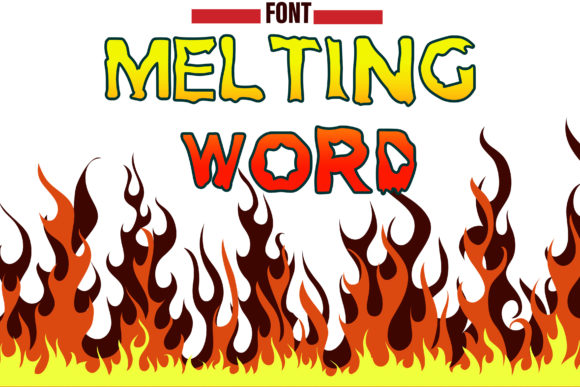
Journey into the realm of the extraordinary with Melting Word Font, a display font that drips with mystique and character. Created by the masterminds at Funnyarti, this font is a captivating dance of molten letters, twisting and turning to form a visual spectacle that commands attention.
Step into a world of boundless creativity, where Melting Word Font transforms your designs into works of art. Its unique, liquid-like appearance adds a touch of intrigue to any project, capturing the eyes and captivating the imagination. Imagine the impact on your t-shirts, sportswear, logos, advertising campaigns, and clothing line when they're adorned with the allure of Melting Word Font. Unleash your creativity and let the font's mesmerizing flow guide you to new heights of design excellence.
Immerse yourself in the versatility of Melting Word Font, a font that adapts seamlessly to a myriad of design aesthetics. Whether you seek a playful, quirky touch or an air of sophistication and elegance, this font delivers. Its ability to morph and mold to your vision makes it the perfect companion for projects that demand a unique and captivating edge.
Dare to be different, to stand out from the crowd, with Melting Word Font. Its captivating presence is guaranteed to leave a lasting impression, making your designs unforgettable. Embrace the power of this extraordinary font and watch as your creative endeavors transcend the ordinary, becoming extraordinary expressions of your artistry.